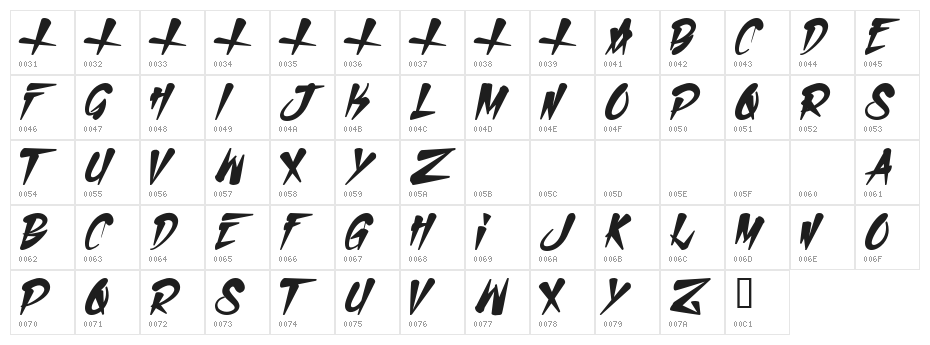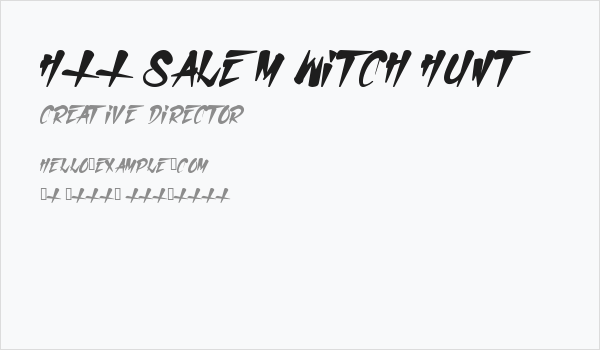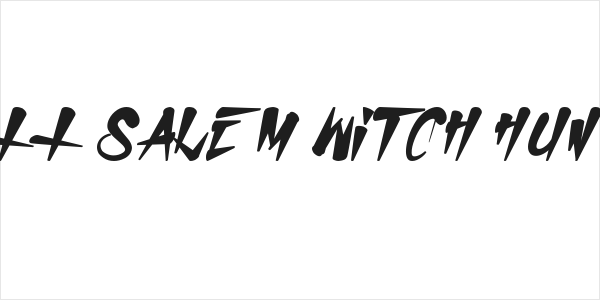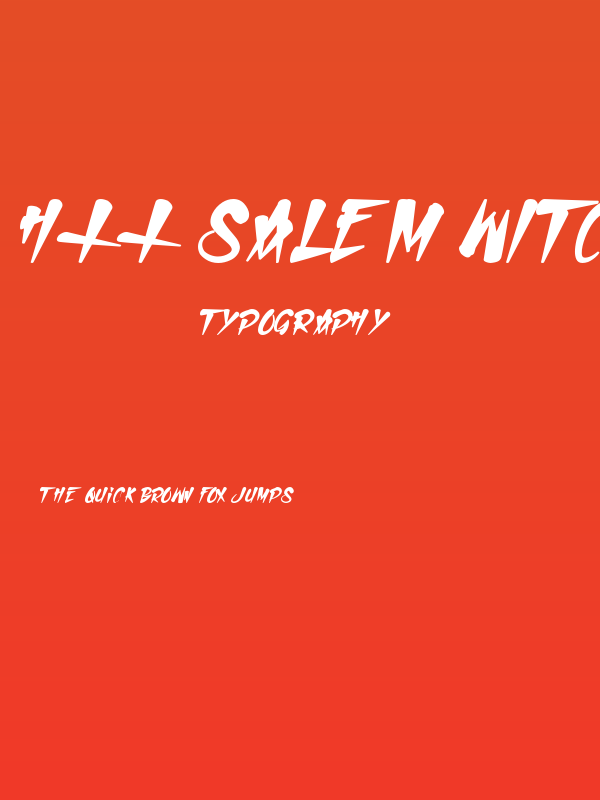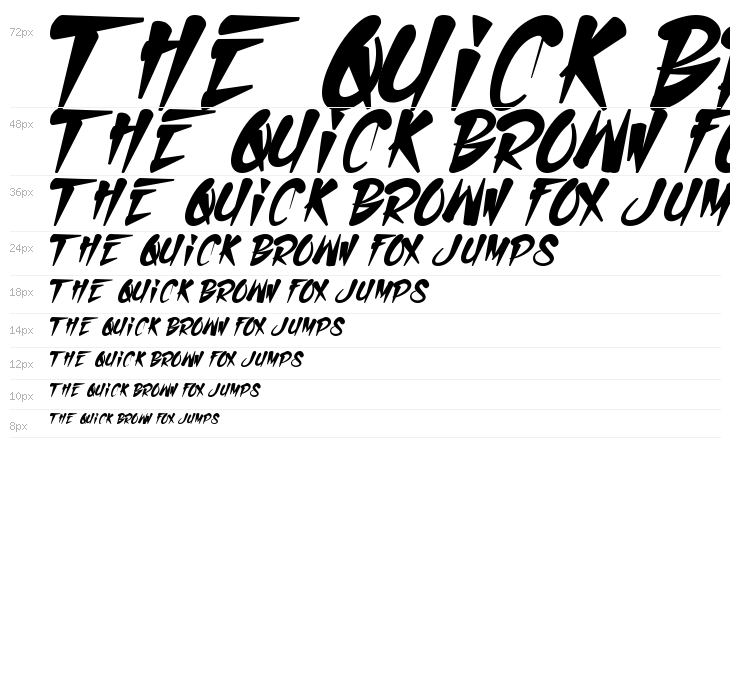
H74 Salem Witch Hunt Font
H74 Salem Witch Hunt Description
This font features a bold and dynamic script style with sharp, angular strokes that give it a sense of movement and energy. The uppercase letters are particularly striking, with exaggerated curves and pointed edges that create a dramatic effect. The lowercase letters maintain this energetic style, ensuring consistency throughout the typeface. The numbers and special characters are designed to match the boldness and flair of the alphabet, making it suitable for eye-catching designs. This font's unique style is perfect for projects that require a strong visual impact.
| Proposed Projects | Ideal for posters, logos, branding, and any design requiring a strong, energetic presence. |